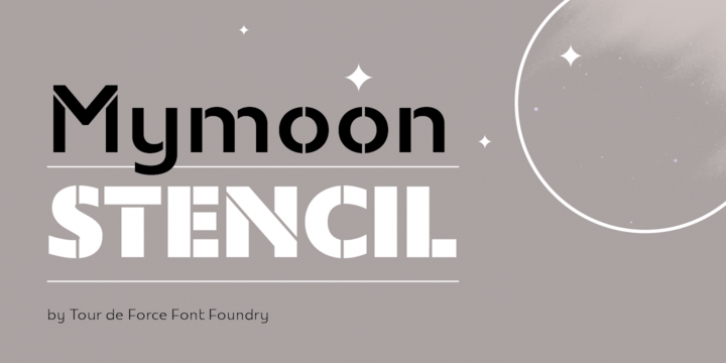
Mymoon Stencil downloadDesigner: Dusan Jelesijevic
Publisher: Tour De Force
Mymoon Stencil is an extension of the Mymoon font family. It comes in 3 weights: UltraLight, Regular and Heavy. Contains extended Latin character set with OT features such as OldStyle and Tabelar numerals and fractions.